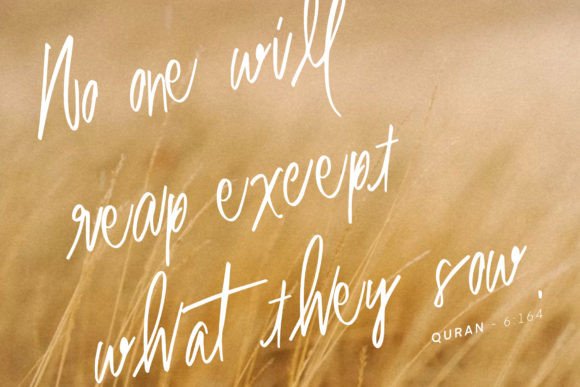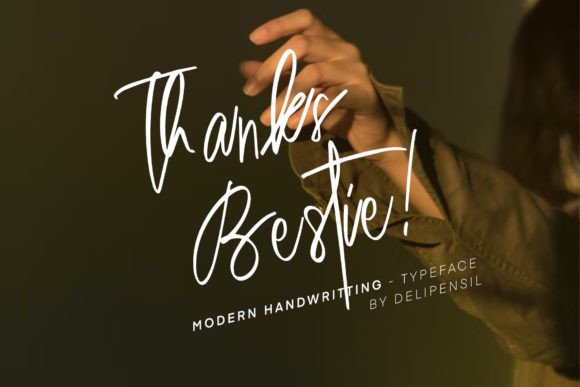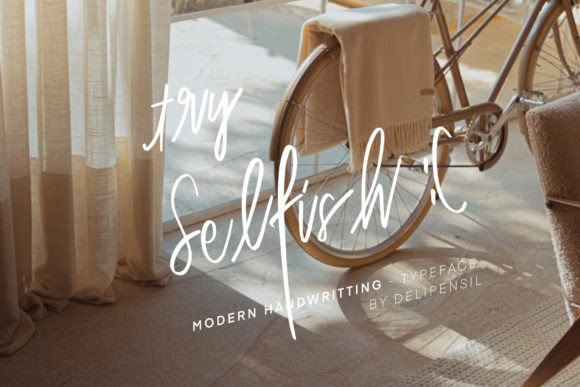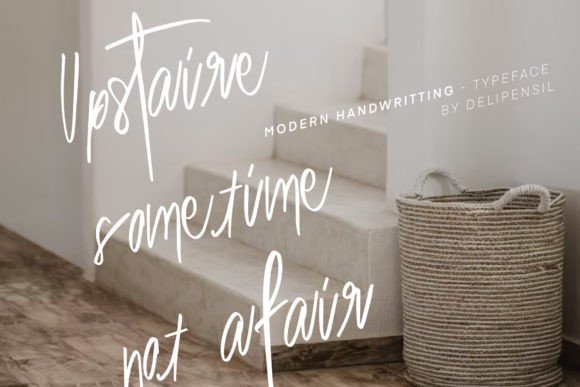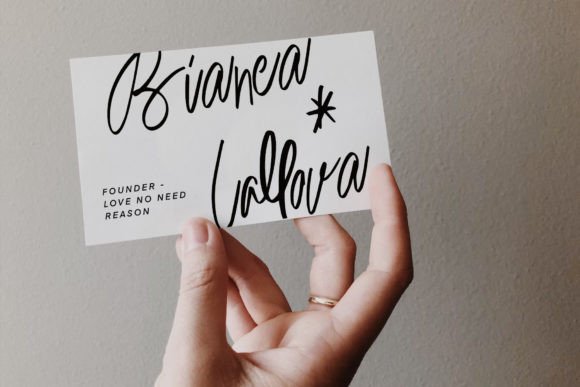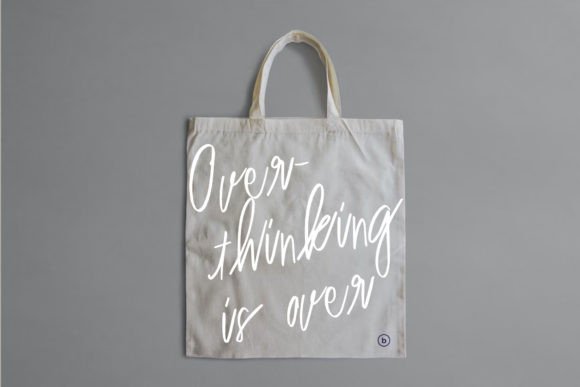
Introducing Ballove Font: The Modern Handwriting Marvel for Designers and Crafters
Bismillah, welcome to the world of Ballove Font, a modern handwriting marvel that is taking the design and crafting community by storm. This beautifully crafted font is made from original handwriting, with each character meticulously designed one by one, making it perfect for branding, quotes, logos, and merchandise.
A Masterful Design for Creative Minds
Ballove Font is masterfully designed to become a true favorite among designers and crafters. Its unique and elegant handwriting style has the potential to bring each of your creative ideas to the highest level. Whether you’re working on a branding project, creating a logo, or designing merchandise, this font is sure to impress. Its modern and fresh look will add a touch of sophistication to any design, making it perfect for those who want to stand out from the crowd.
One of the standout features of Ballove Font is its PUA (Private Use Area) encoding. This means that you can access all of the amazing glyphs and ligatures with ease, giving you complete creative control over your designs. With PUA encoding, you can effortlessly insert special characters, swashes, and other unique elements that will take your designs to the next level.
Ballove Font is incredibly versatile and can be used for a wide range of design projects. Here are just a few ideas to get you started:
• Branding: Use Ballove Font to create a unique and memorable brand identity that will set you apart from the competition.
• Logos: Design a stunning logo that showcases your brand’s personality and style.
• Merchandise: Create eye-catching merchandise, such as t-shirts, mugs, and tote bags, that will appeal to customers and fans.
• Quotes and Posters: Use Ballove Font to create inspiring quotes and posters that will motivate and uplift your audience.
Why Choose Ballove Font?
So, why should you choose Ballove Font for your design projects? Here are just a few reasons:
• Unique and Elegant: Ballove Font has a unique and elegant handwriting style that will add a touch of sophistication to any design.
• Highly Versatile: This font can be used for a wide range of design projects, from branding and logos to merchandise and quotes.
• Easy to Use: With PUA encoding, you can easily access all of the amazing glyphs and ligatures, making it simple to create stunning designs.
• Masterfully Designed: Ballove Font is masterfully designed to become a true favorite among designers and crafters, ensuring that your designs will stand out from the crowd.
Font Name Ballove Font
Author delipensil
In conclusion, Ballove Font is a modern handwriting marvel that is perfect for designers and crafters who want to take their designs to the next level. With its unique and elegant style, PUA encoding, and versatility, this font is sure to become a favorite among creative professionals. Whether you’re working on a branding project, creating a logo, or designing merchandise, Ballove Font is the perfect choice. So why wait? Download Ballove Font today and start creating stunning designs that will leave a lasting impression!